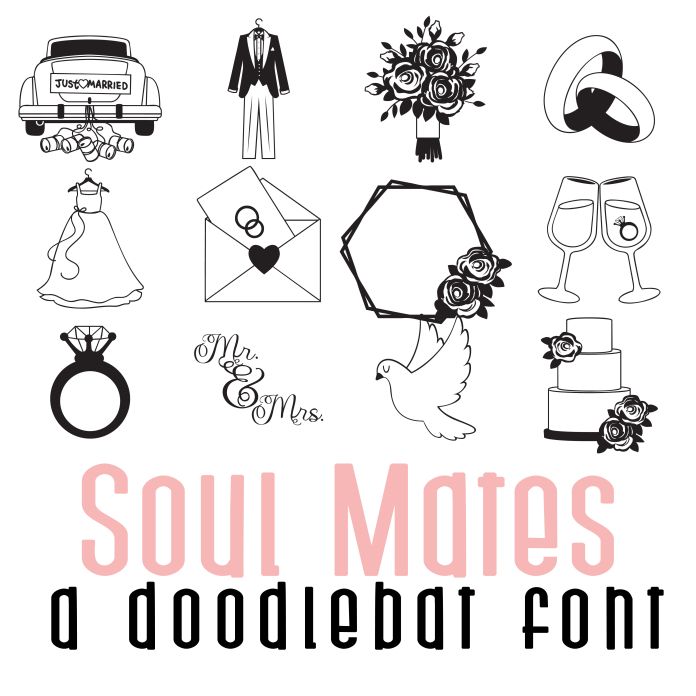
This beautiful doodlebat font features 26 wedding themed images. Perfect for cards, crafts, gifts, decor, scrapbook pages, planner stickers, and more!